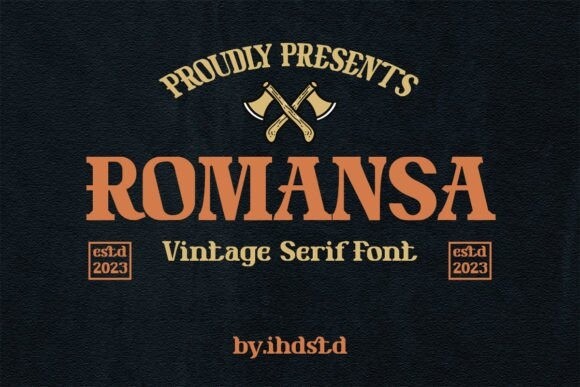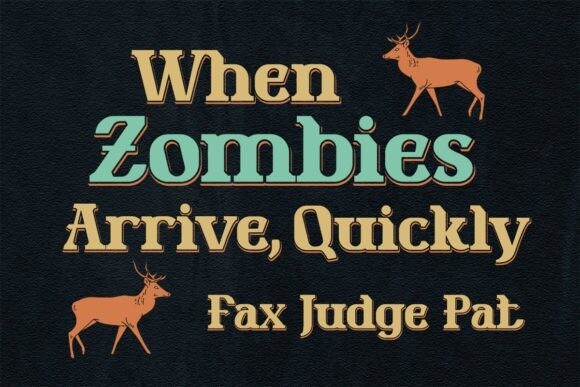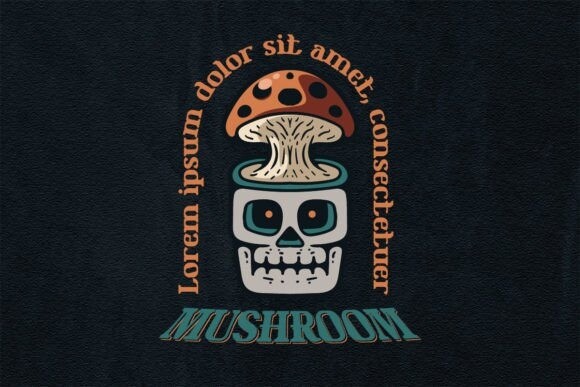
Romansa Vintage Font
Romansa Vintage is a retro and fiery font, that brings the feeling of courage to the center of attention. The innovative calligraphy makes the font a must-have in your library fonts. Keep in mind that the fond is PUA encoded, meaning that you can access all delightful glyphs and swashes effortlessly.